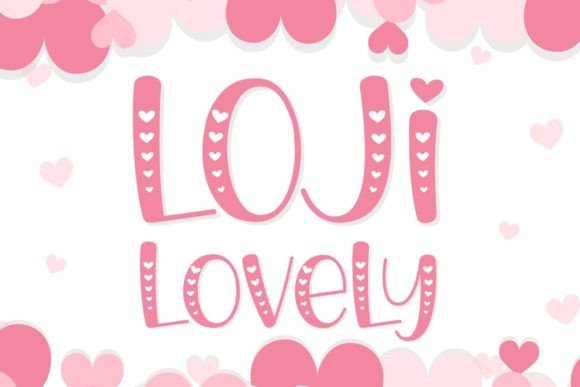
**Loji Lovely Font: A Heartfelt Touch for Your Special Occasions**
Immerse yourself in the enchanting world of Loji Lovely, a decorative font that radiates love, joy, and happiness. With its delicate heart ornaments adorning each character, this font is the perfect choice for adding a touch of romance and sentiment to any design.
Crafted with the utmost care by the talented designers at Wakhamm (7NTypes), Loji Lovely is the epitome of elegance and charm. Its intricate details and flowing lines are sure to captivate your audience, leaving an unforgettable impression.
Whether you're creating heartfelt Valentine's Day cards, expressing your love and gratitude on Mother's Day, or celebrating a cherished anniversary, Loji Lovely will effortlessly elevate your designs. Its versatility extends to a wide range of projects, including wedding invitations, gift tags, and personal stationery.
With Loji Lovely at your fingertips, you can infuse your creations with a touch of whimsy and romance. Its charming appearance is guaranteed to evoke feelings of joy and affection, making it the perfect choice for any occasion that calls for a heartfelt expression.
So, embrace the delightful embrace of Loji Lovely and let your designs radiate love and happiness!